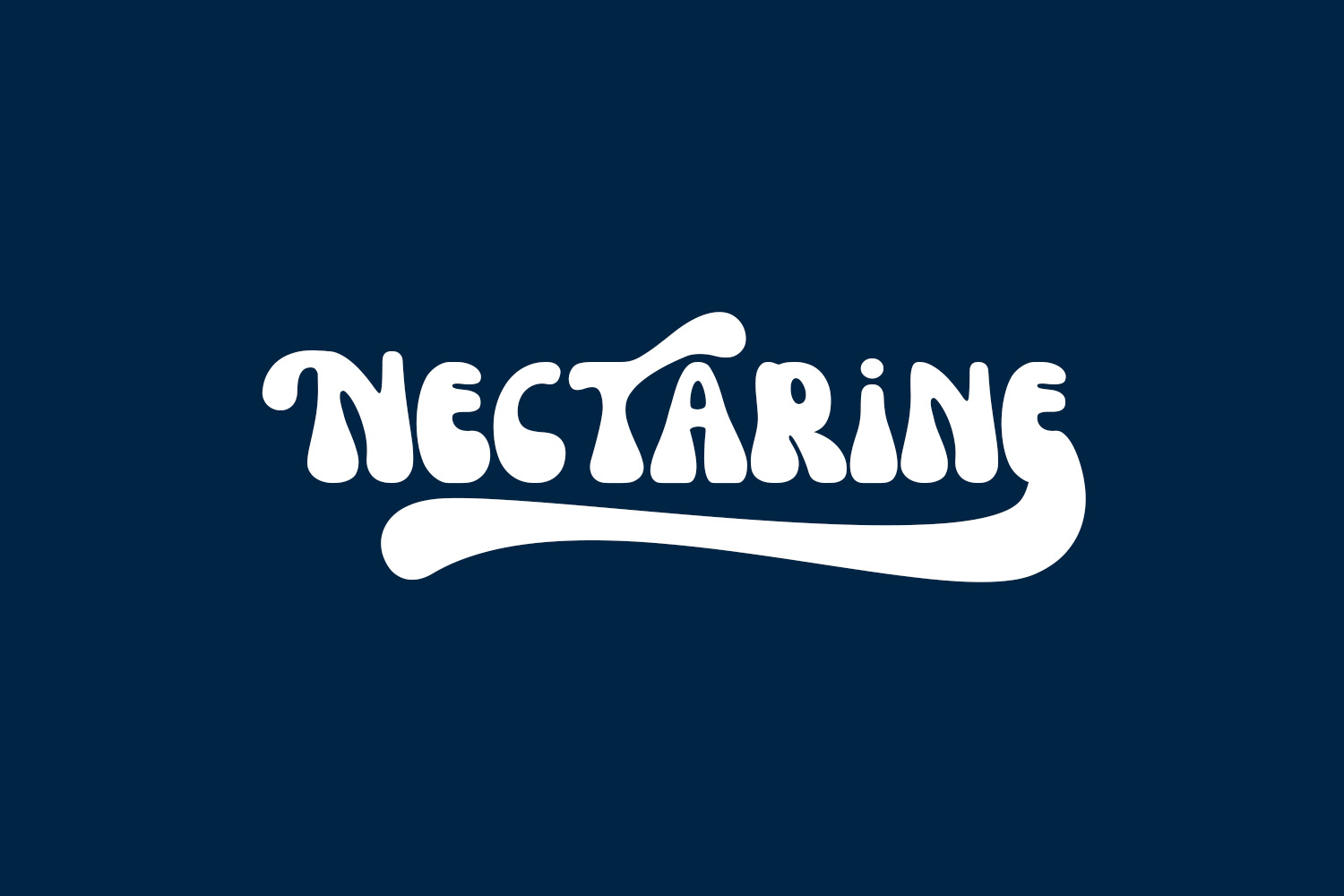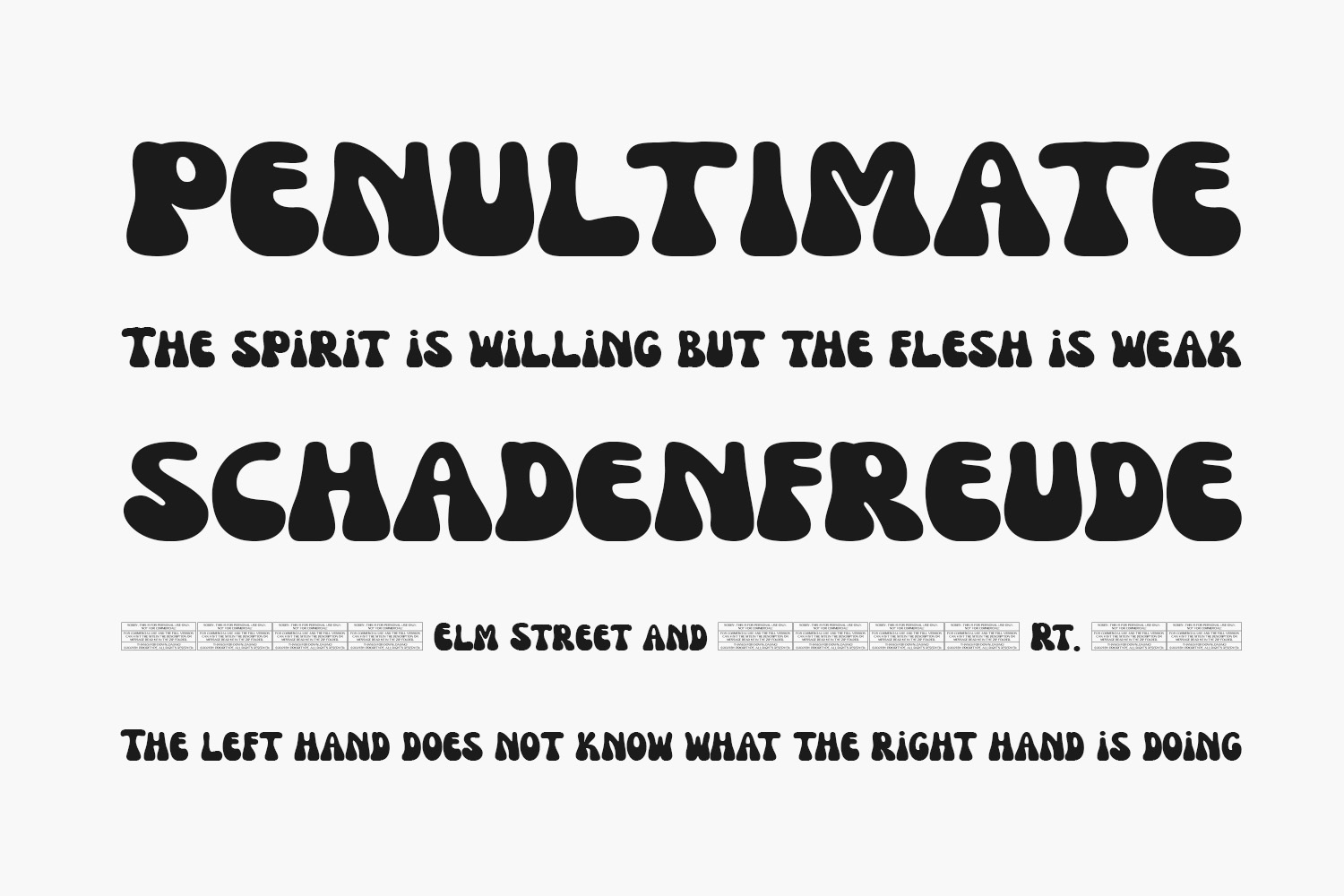
Nectarine Free Font is a cool and retro styled display font. Nectarine Free Font was designed by Prioritype Co is a demo and free for personal use only. Please purchase the full version for commercial use.